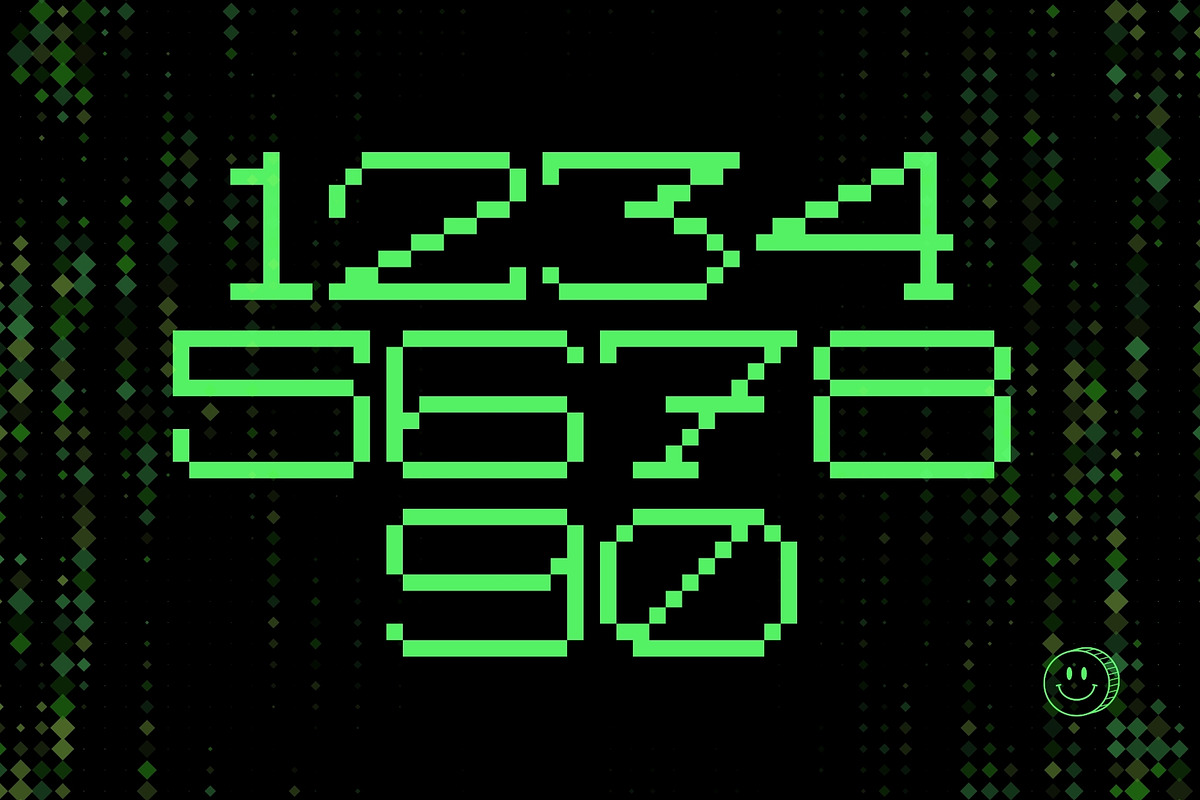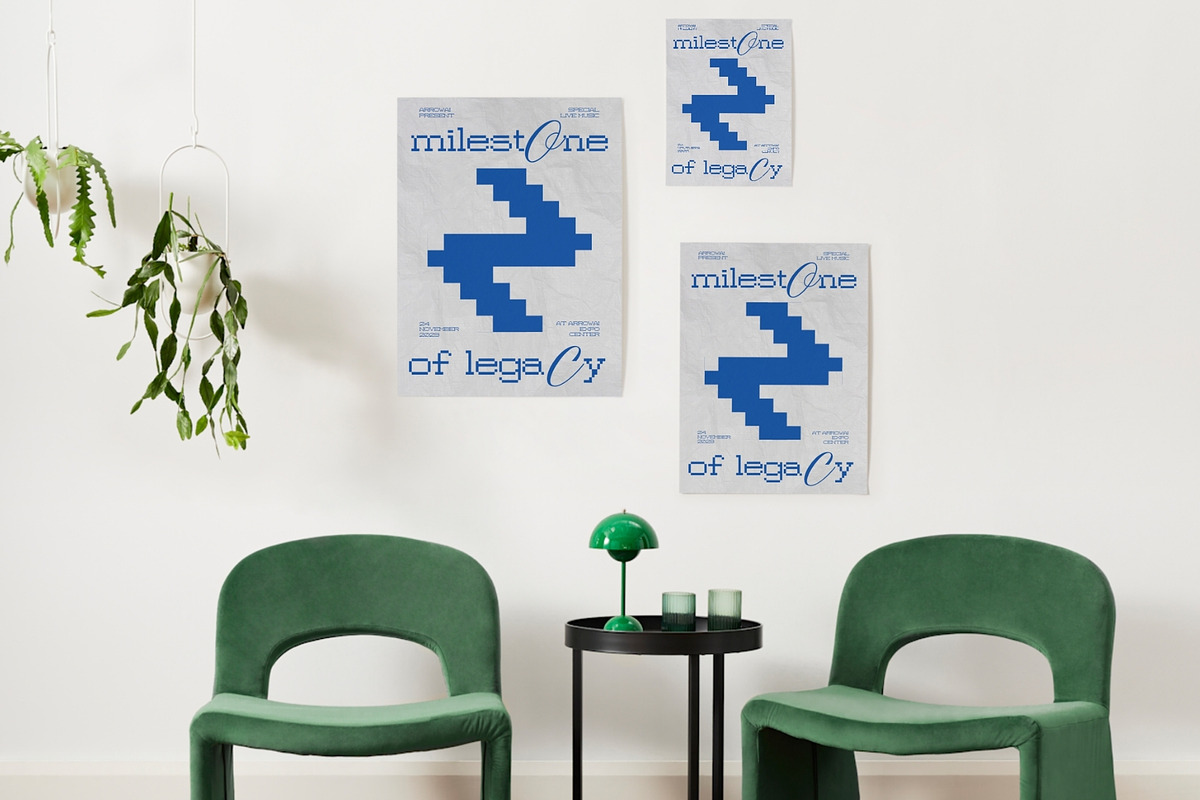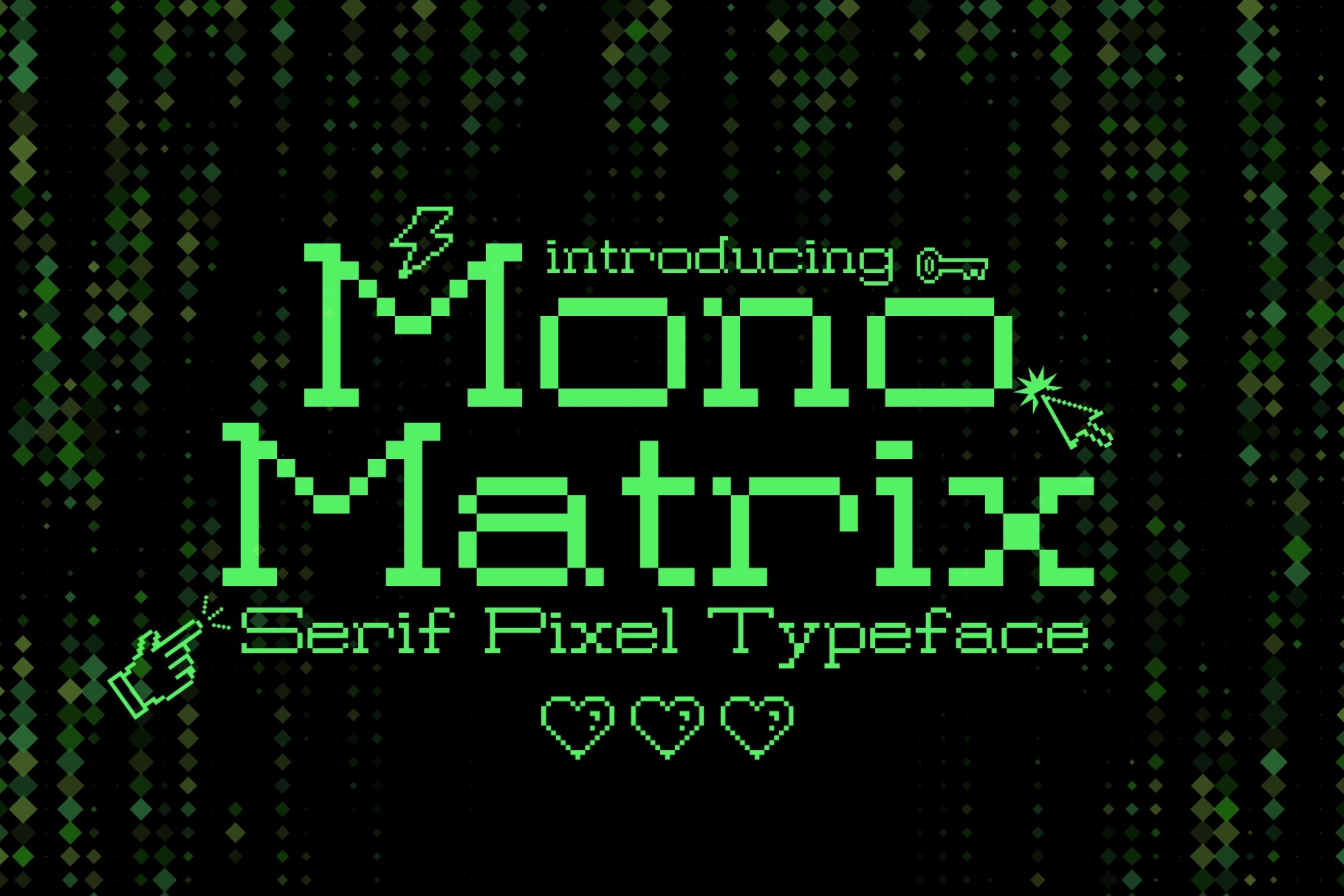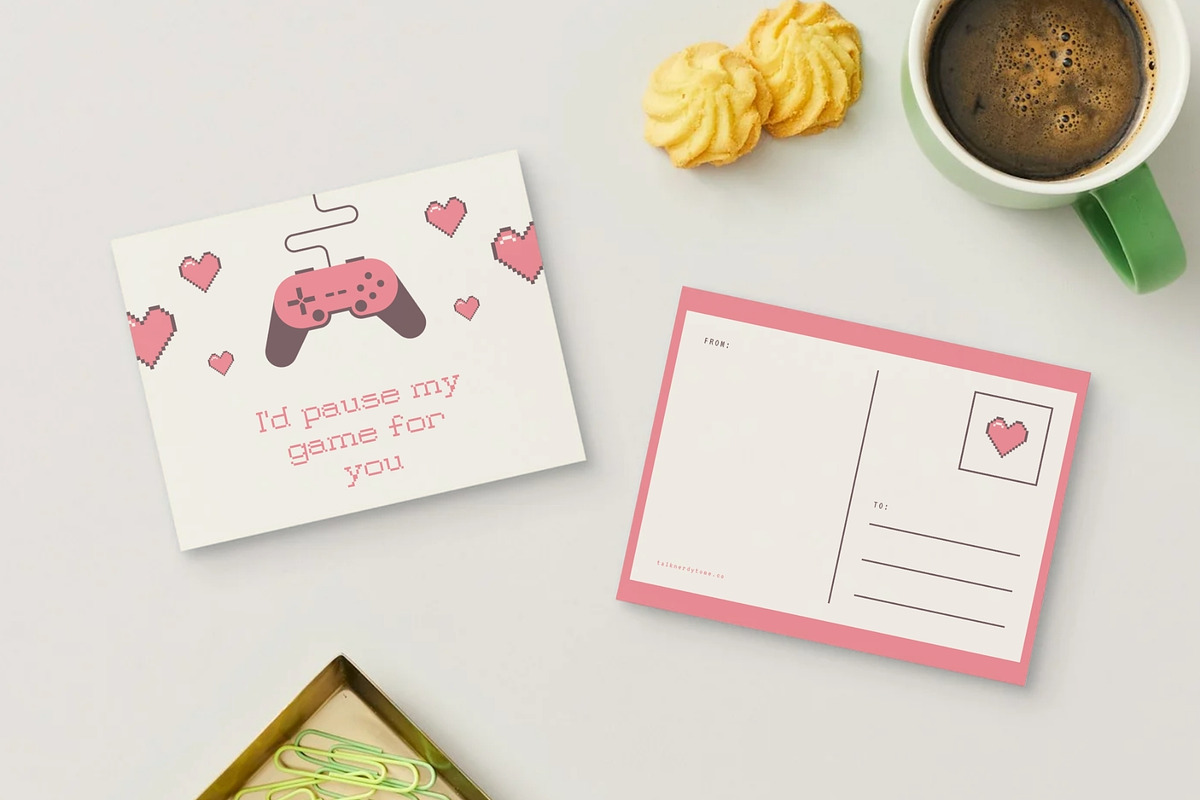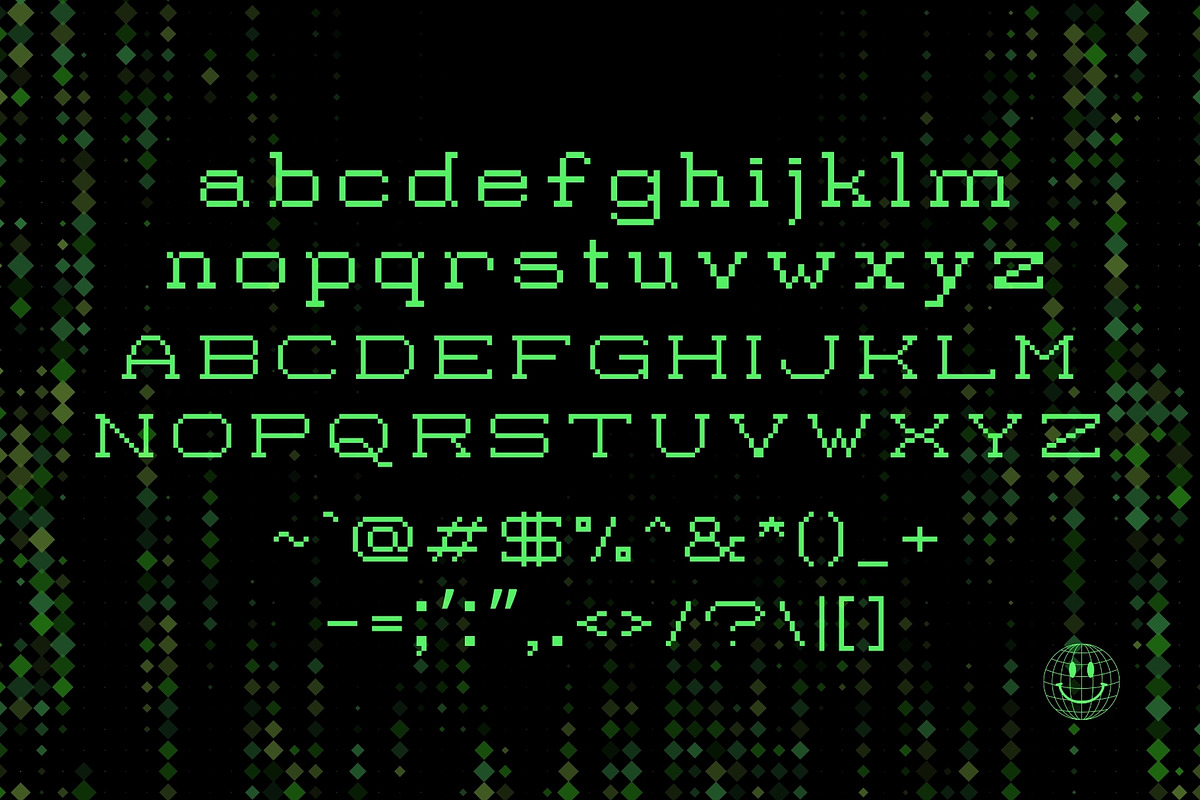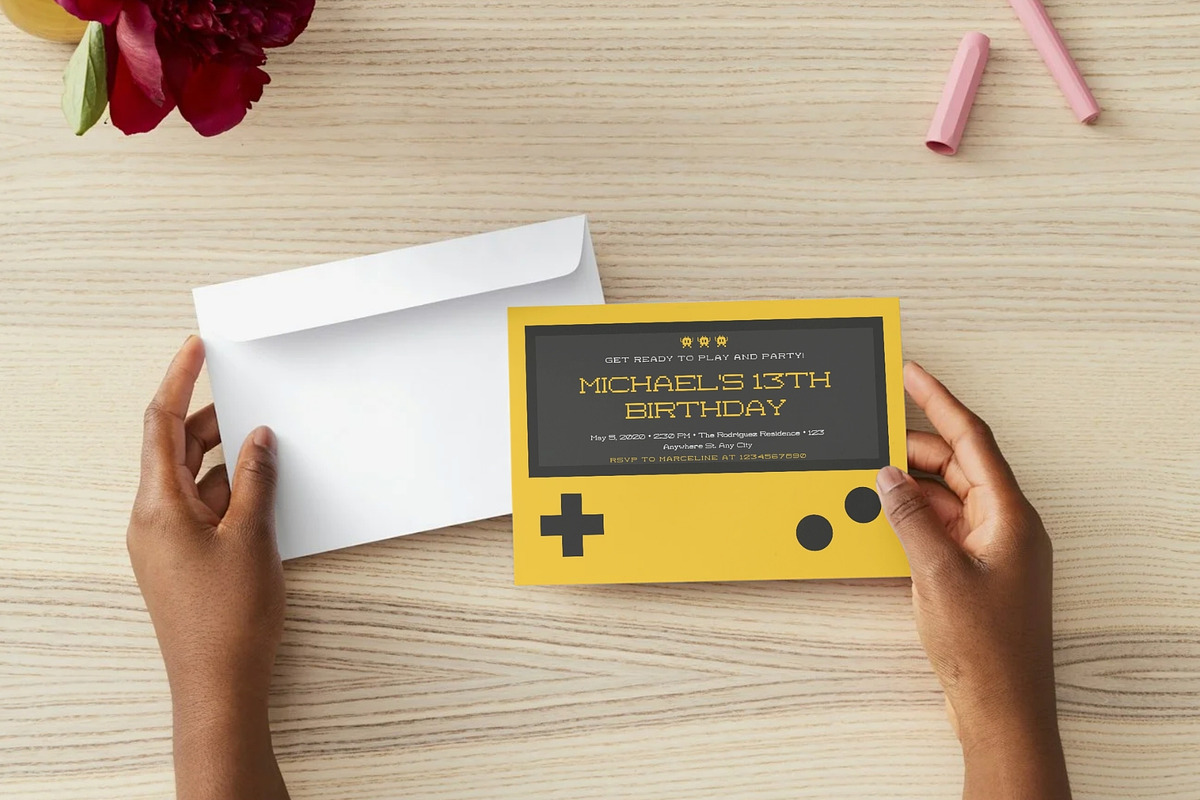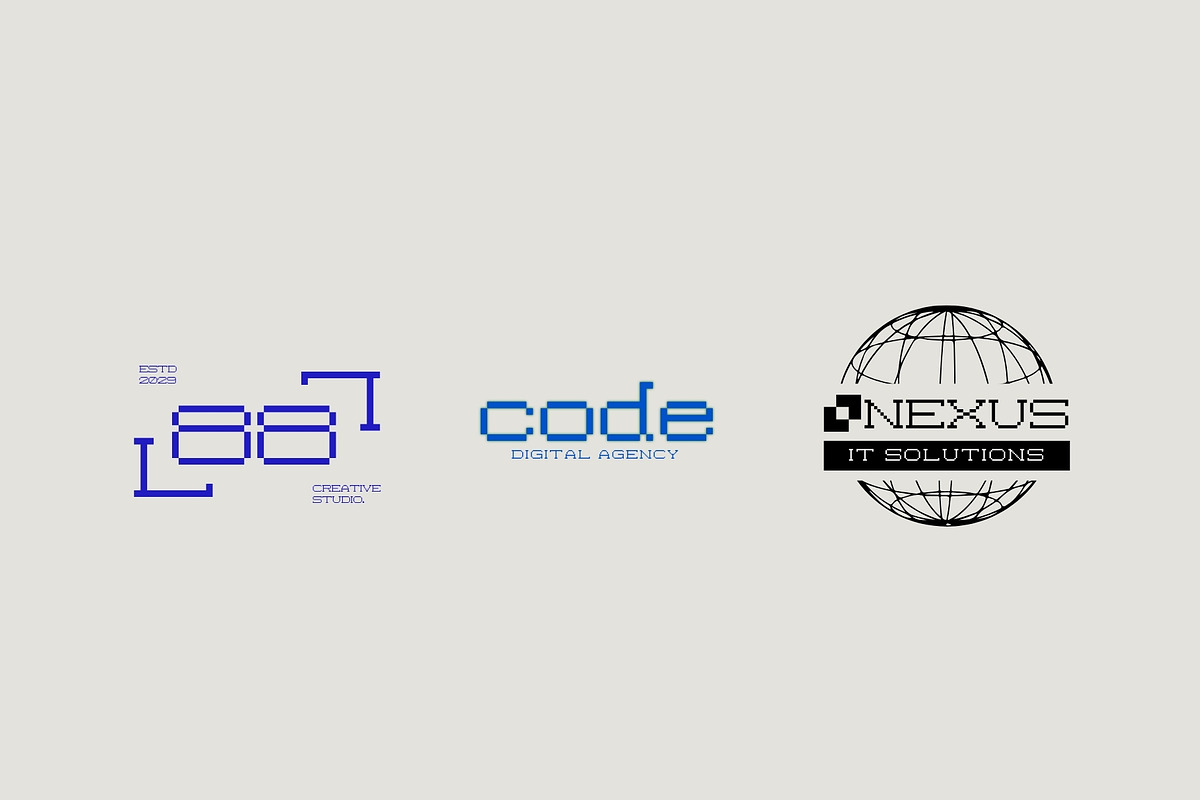
Mono Matrix - 8Bit Serif Pixel Font
Mono Matrix is a distinctive serif pixel font that merges the precision of grid-based design with the timeless elegance of serif typography. Built on a structured pixel foundation, it introduces subtle serif details that elevate it beyond traditional blocky pixel fonts.
The result is a typeface that feels both retro and refined—a perfect fusion of old-school digital aesthetics and classic typographic influence. Its balanced construction ensures clarity and readability, while the serif accents add personality, rhythm, and a unique visual signature.
Mono Matrix stands out in projects that demand something different—a pixel font with sophistication and character. It’s ideal for branding, editorial layouts, posters, game design, UI interfaces, tech visuals, and experimental typography.
Whether you're creating nostalgic digital designs or pushing modern creative boundaries, Mono Matrix delivers a bold yet polished look that feels intentional and memorable.